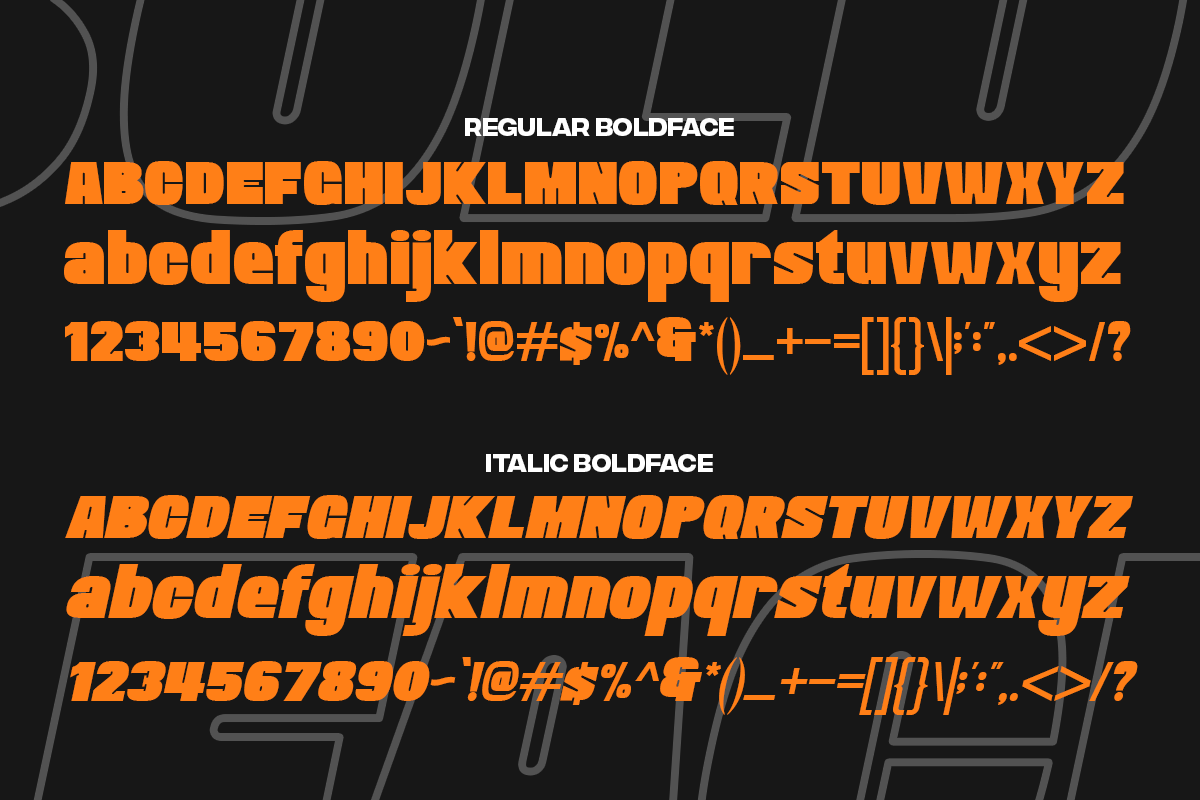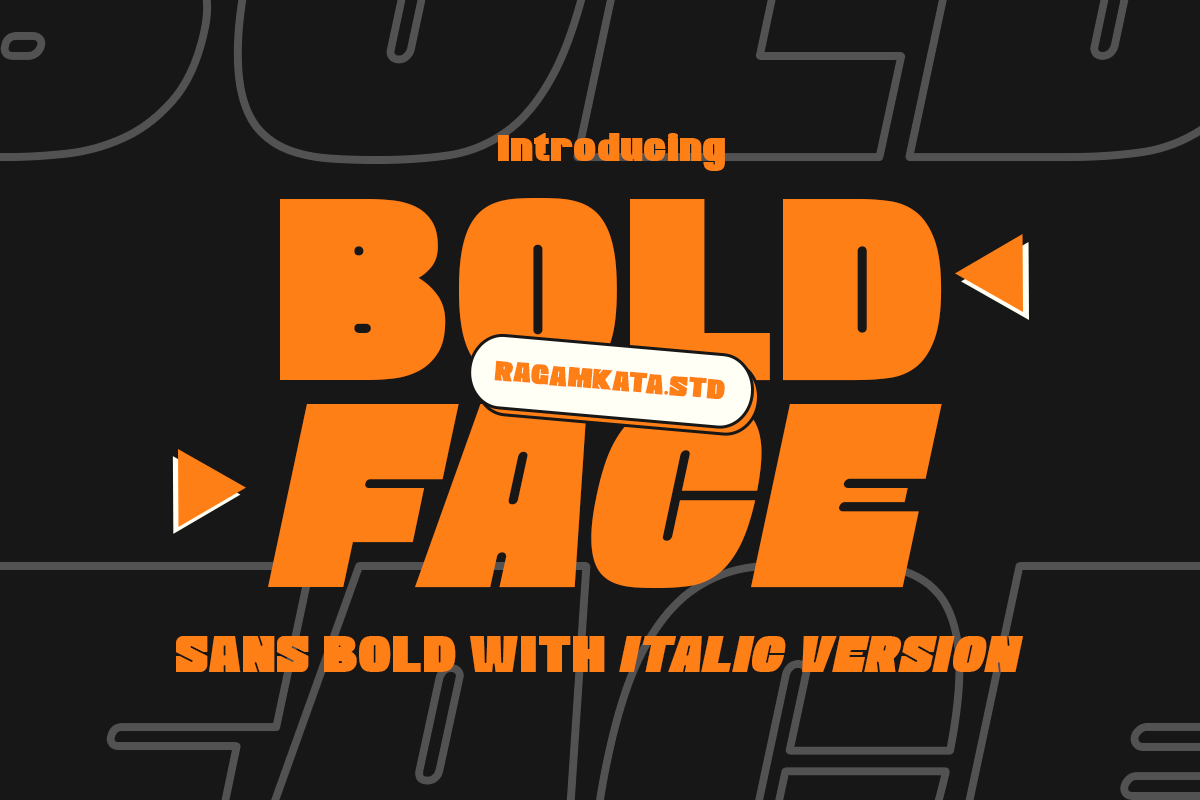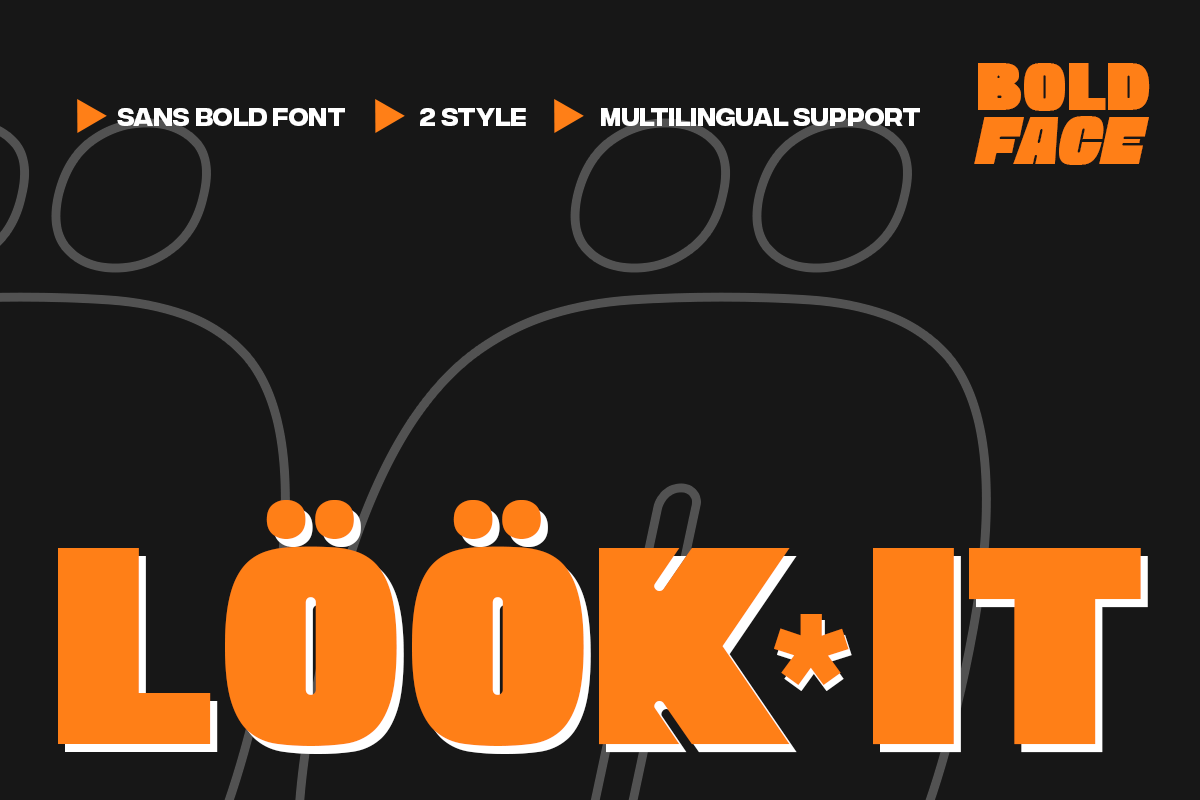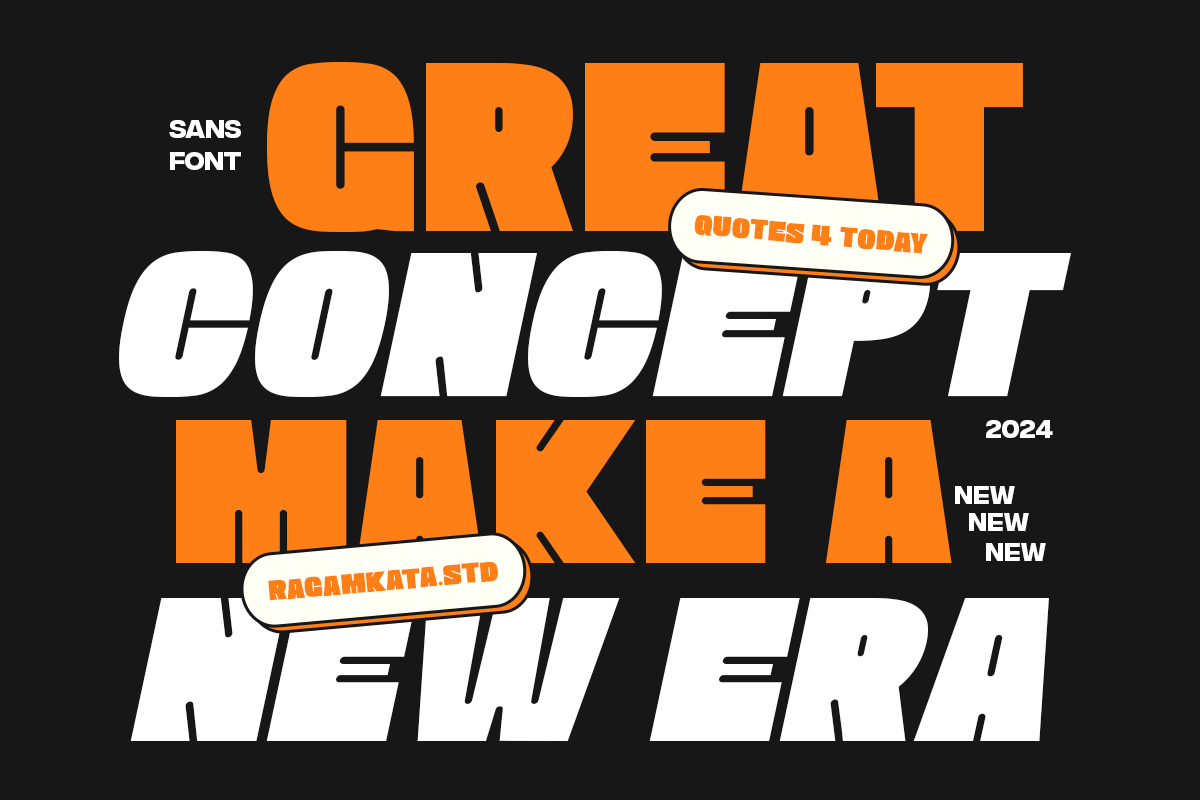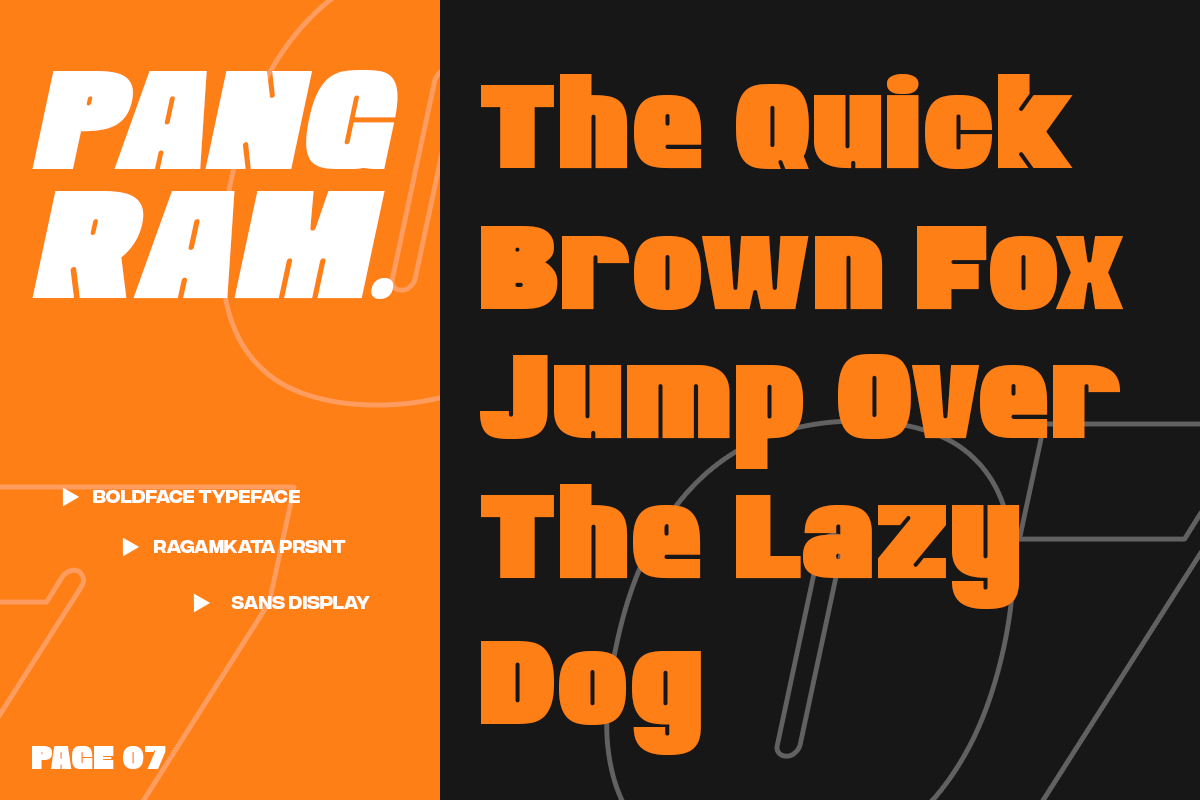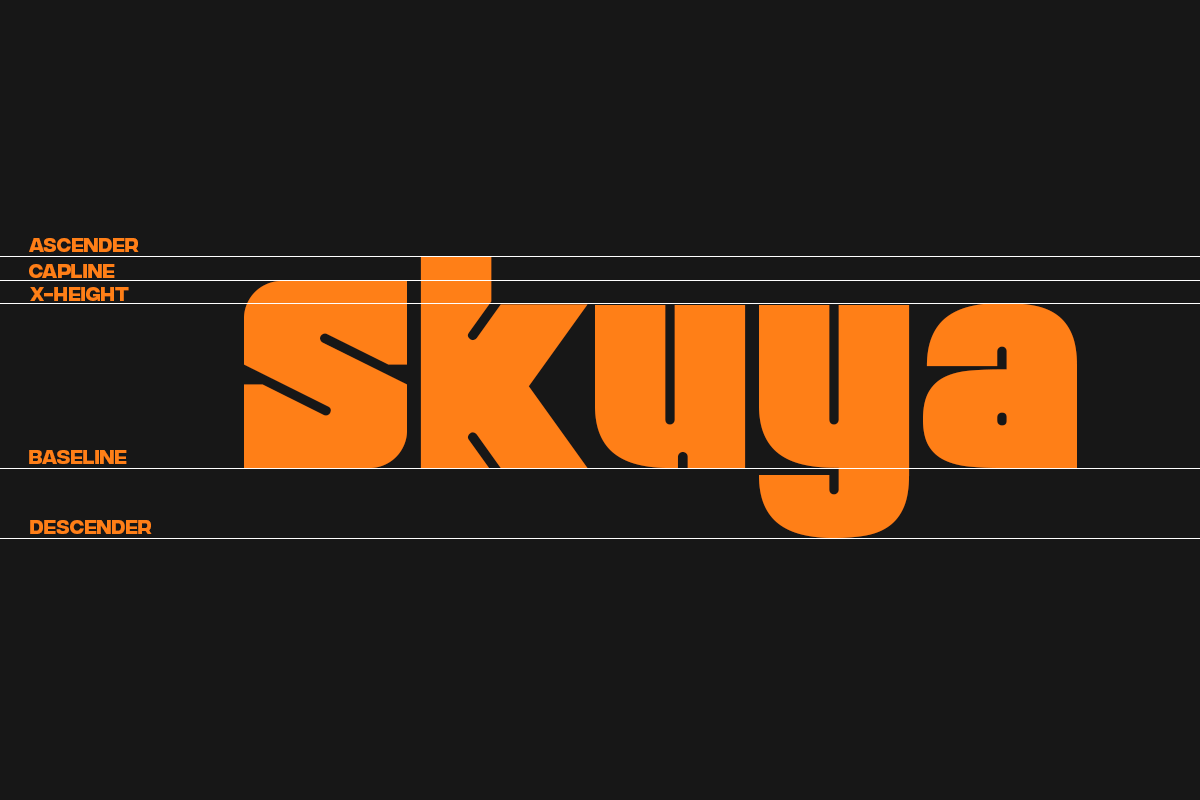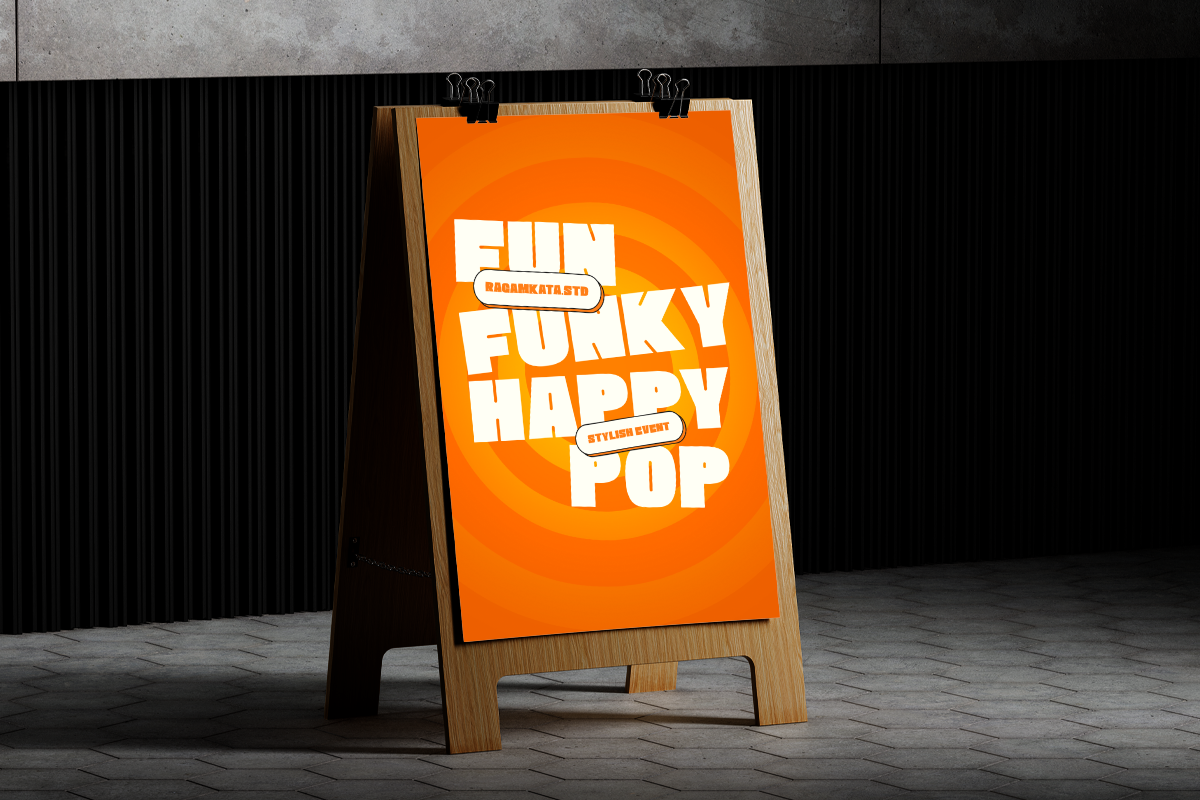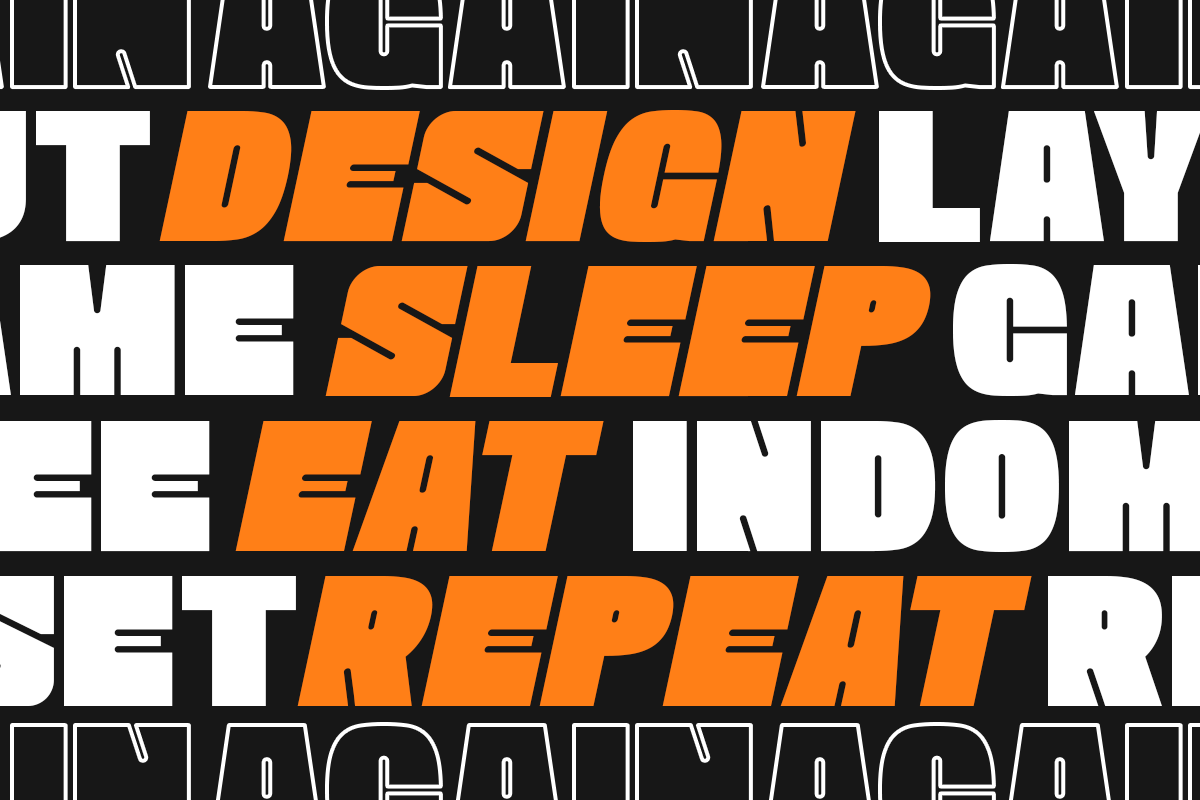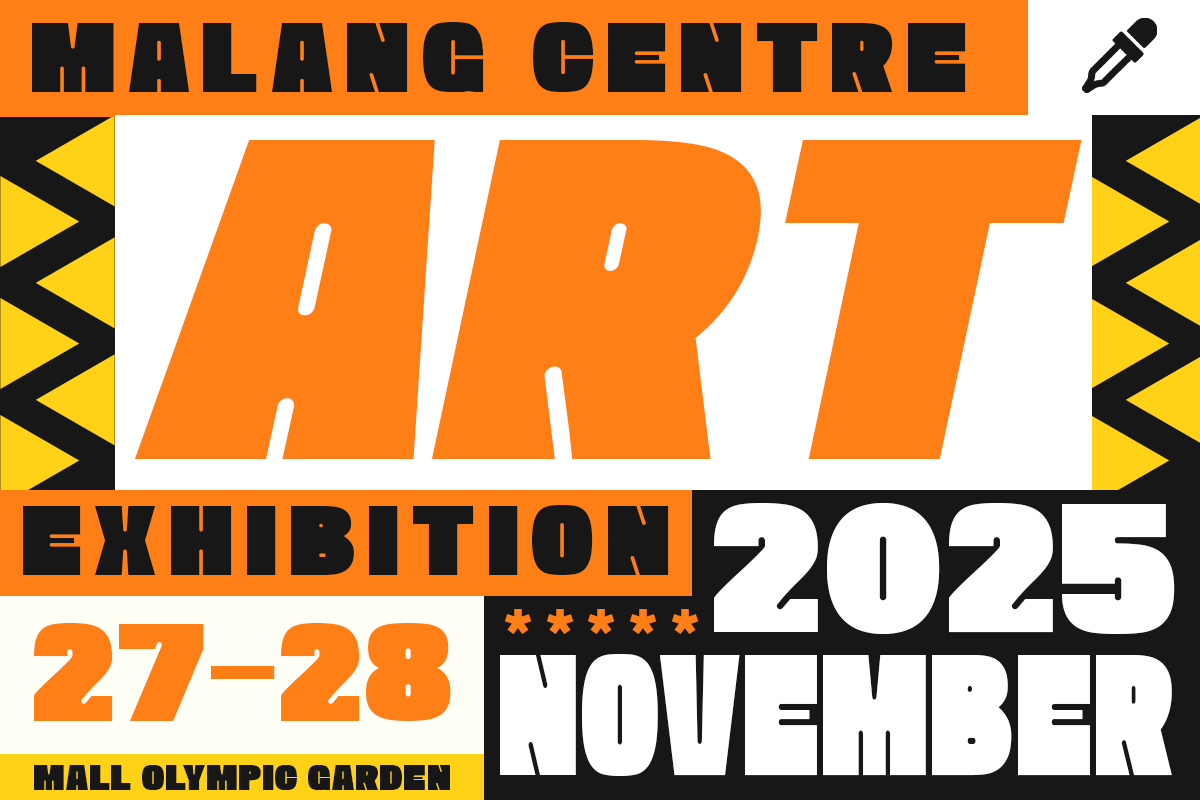
Boldface - Bold Sans Font
Introducing Boldface, a strong, impactful sans-serif font with bold letterforms designed to make a statement. Perfect for attention-grabbing headlines, posters, banners, and branding projects, this font offers a clean and modern aesthetic with a dynamic italic version for added versatility. Its sharp edges and confident design are ideal for bold, professional, and creative projects that demand high visibility and clarity. Whether used for digital or print mediums, Bold Face ensures your message stands out with style.